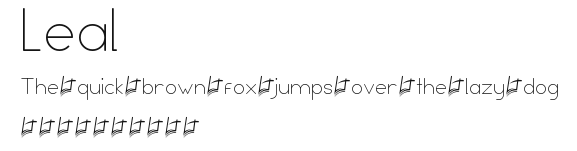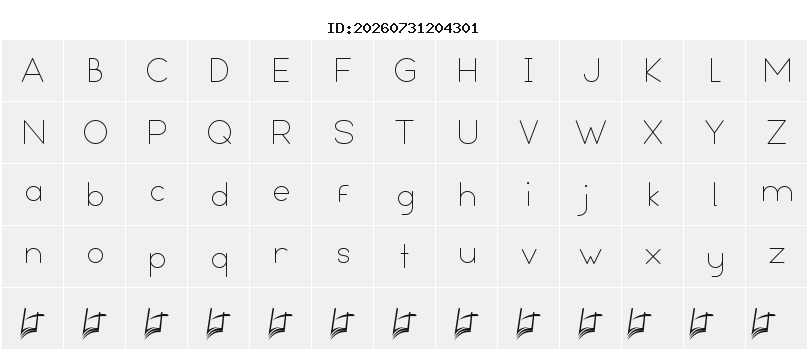
Leal Preview
• Font Name: Leal
• Font Style: Thin
• Font ID: Leal Thin:Version 1.001
• Full Font Name: Leal Thin
• Version: Version 1.001 May 31, 2016
• PostScript Name: Leal-Thin
• Character Count: 225
• Designer: Luis Jaramillo
• Manufacturer: LJ Design Studios
About Leal.ttf
Leal.ttf is a modern, elegant sans-serif font designed for ultimate readability and visual harmony. Perfect for branding, headlines, web design, and print materials.